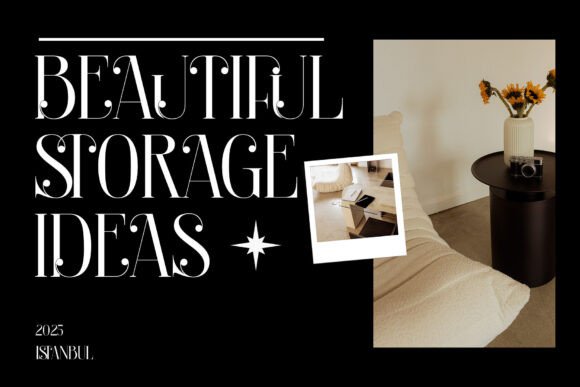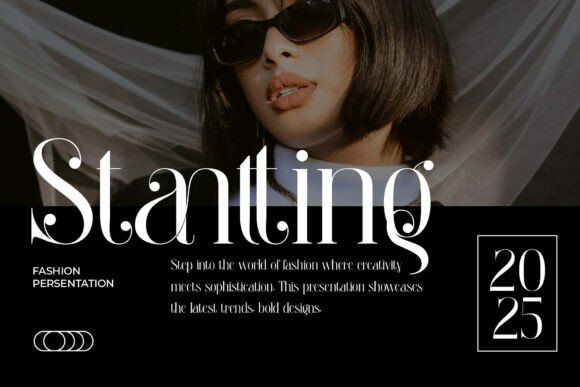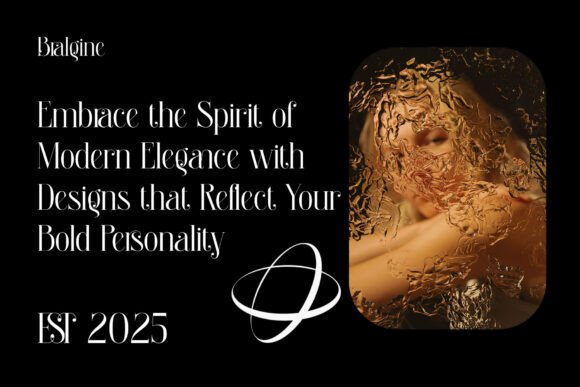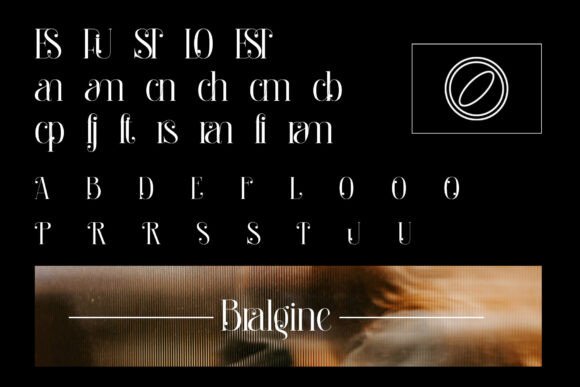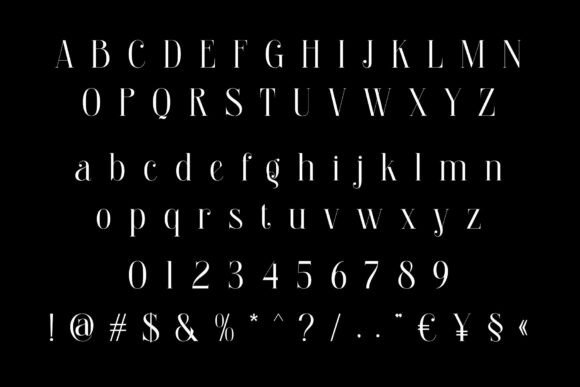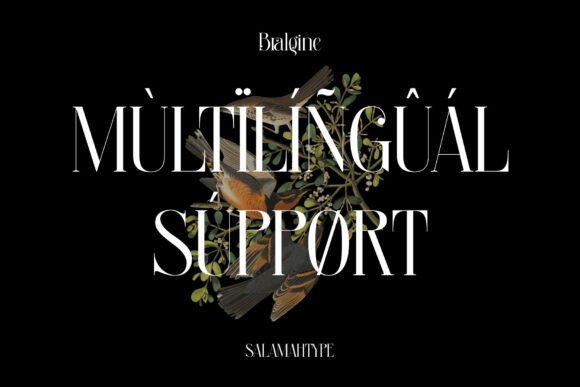
Bralgine Font: Elevate Your Designs with Elegance and Sophistication
In the world of typography, fonts play a crucial role in conveying the tone and personality of a design. For designers and crafters seeking to add a touch of luxury, femininity, and modernity to their projects, Bralgine font is an exceptional choice. This serif font is meticulously designed to blend traditional beauty with innovative features, making it perfect for a wide range of design applications.
The Essence of Bralgine Font
Bralgine is a serif font that embodies elegance and modernity. Its smooth lines and intricate details create a captivating sophistication, ideal for designs that require a refined and luxurious feel. The font’s unique ligatures add an artistic flair, providing a sense of fluidity and refinement to every word. This distinctive feature makes Bralgine stand out from other fonts, offering a perfect balance of elegance and uniqueness.
Design Applications for Bralgine Font
Bralgine font is versatile and can be used in various design applications, including:
- Luxury Branding: Bralgine’s sophisticated and timeless character makes it an excellent choice for luxury brands seeking to convey exclusivity and high-end quality.
- Logos: The font’s unique ligatures and elegant design make it perfect for creating distinctive logos that stand out.
- Wedding Invitations: Bralgine’s luxurious and feminine feel makes it an ideal choice for wedding invitations, adding a touch of elegance and sophistication to the occasion.
- Modern Graphic Design Projects: The font’s modern design and artistic flair make it suitable for a wide range of graphic design projects, from brochures to packaging.
Industries that Benefit from Bralgine Font
Bralgine font is particularly well-suited for industries that prioritize femininity, luxury, and exclusivity, including:
- Fashion: Bralgine’s elegant and modern design makes it perfect for fashion brands seeking to convey sophistication and style.
- Beauty: The font’s luxurious and feminine feel makes it an excellent choice for beauty brands, adding a touch of elegance to their designs.
- Jewelry: Bralgine’s sophisticated and timeless character makes it ideal for jewelry brands, conveying exclusivity and high-end quality.
- High-End Events: The font’s luxurious and elegant design makes it perfect for high-end events, such as charity galas, fashion shows, and luxury weddings.
The Benefits of Using Bralgine Font
By incorporating Bralgine font into your designs, you can:
- Elevate Your Designs: Bralgine’s elegant and modern design adds a touch of sophistication to any project.
- Convey Femininity and Luxury: The font’s feminine and luxurious feel makes it perfect for designs that require a refined and high-end quality.
- Stand Out from the Crowd: Bralgine’s unique ligatures and artistic flair make it a distinctive font that sets your designs apart.
In conclusion, Bralgine font is an exceptional choice for designers and crafters seeking to add a touch of elegance, sophistication, and luxury to their projects. Its unique ligatures, elegant design, and versatility make it perfect for a wide range of design applications, from luxury branding to modern graphic design projects. By incorporating Bralgine font into your designs, you can elevate your work, convey femininity and luxury, and stand out from the crowd.
Whether you’re a designer, crafter, or simply someone who appreciates beautiful typography, Bralgine font is sure to inspire and elevate your work. With Bralgine, every word becomes a work of art full of meaning and elegance.